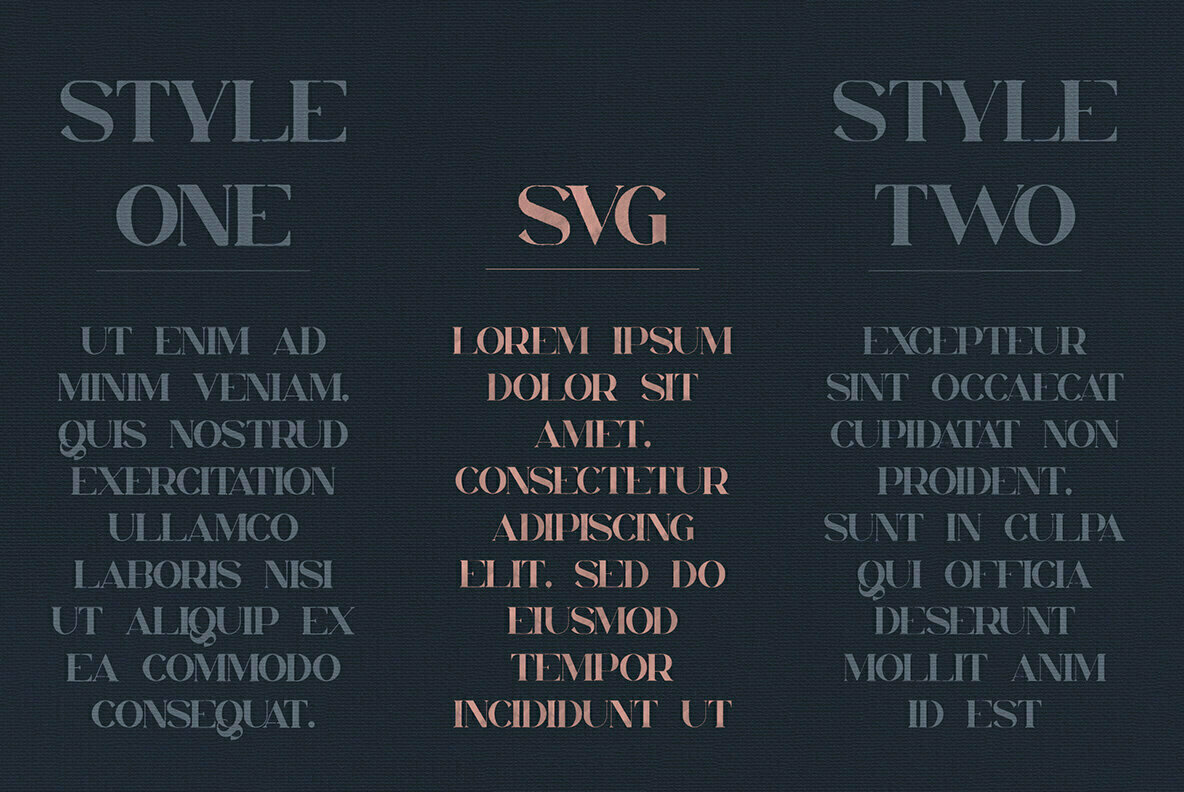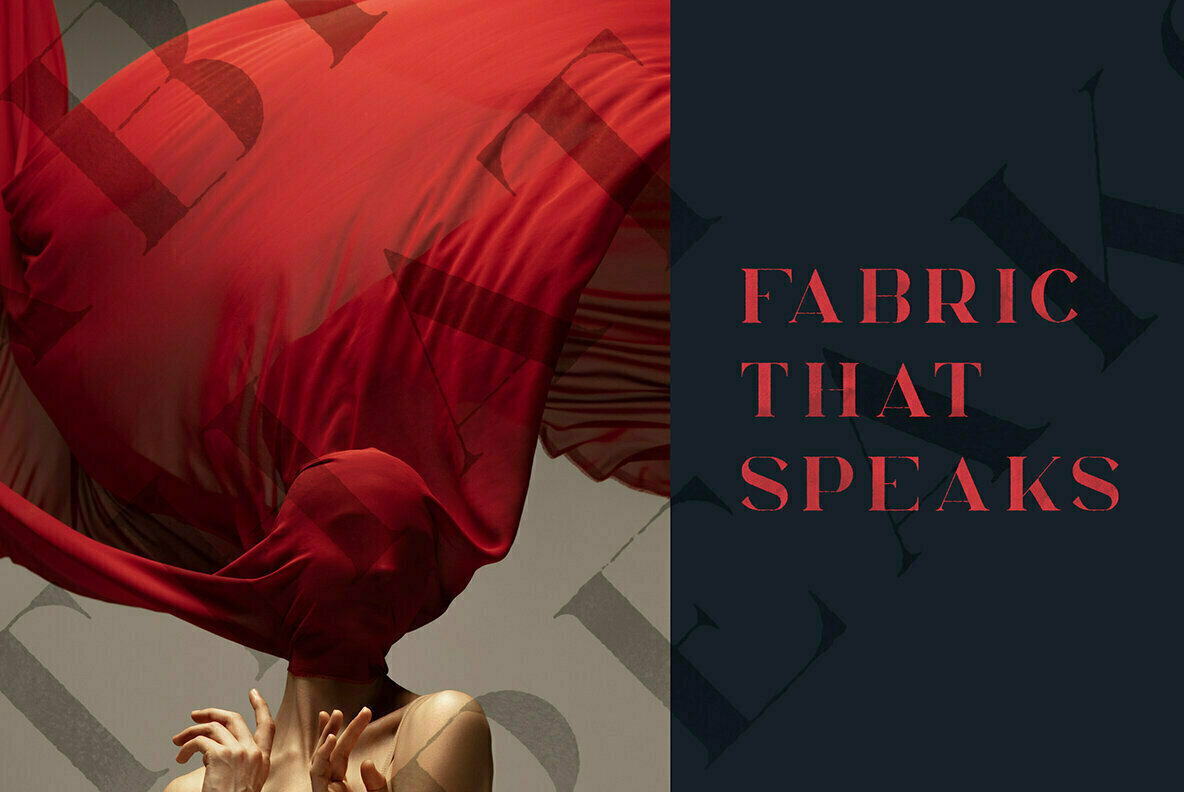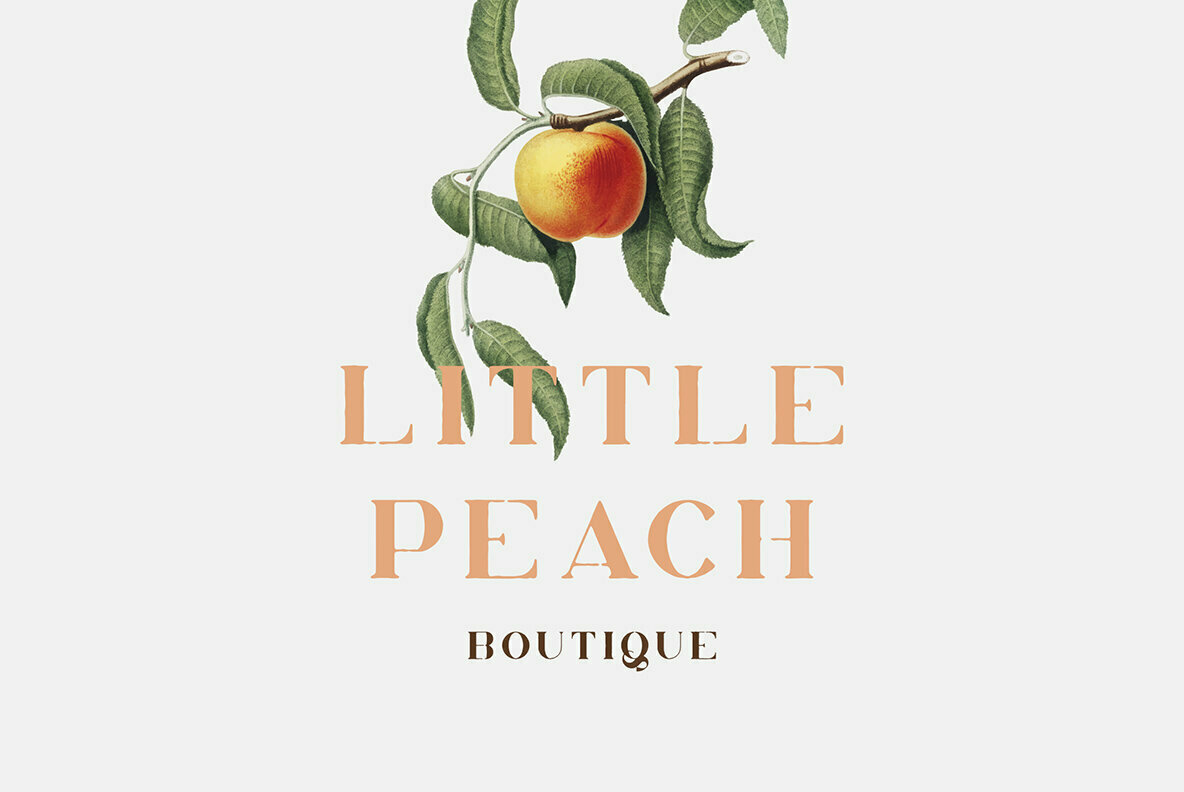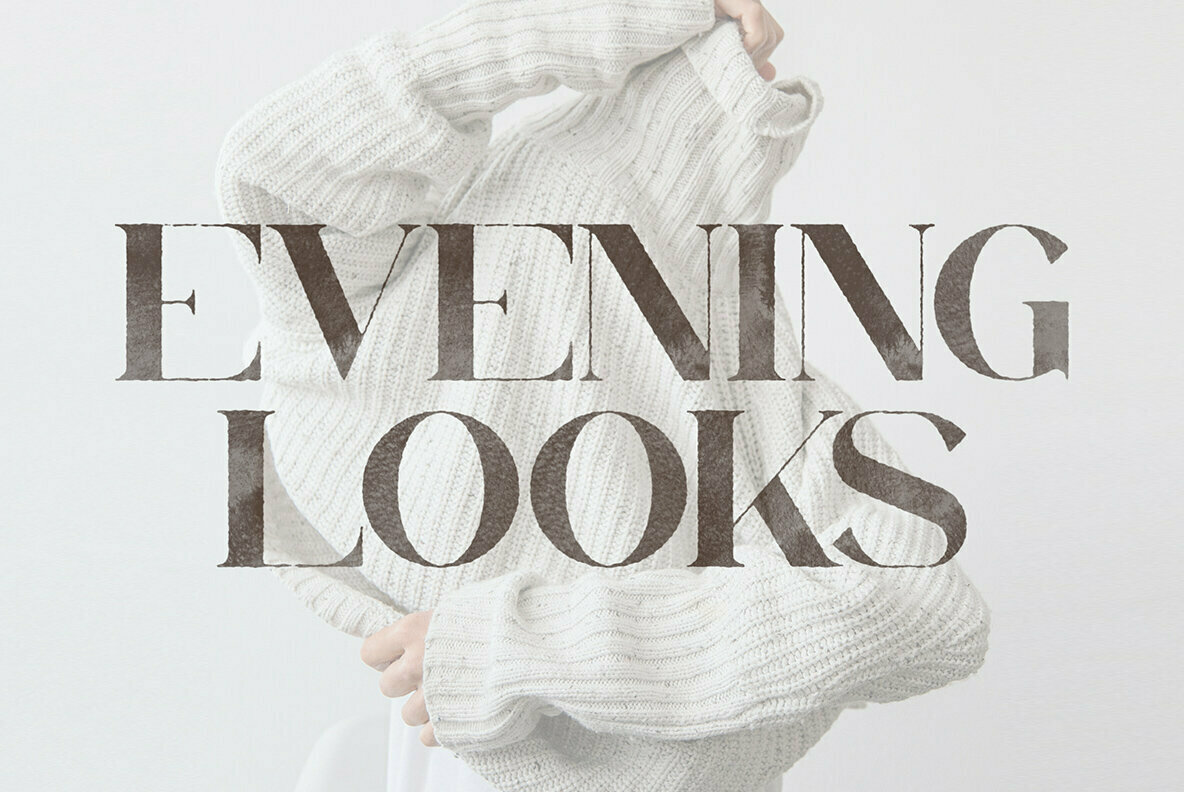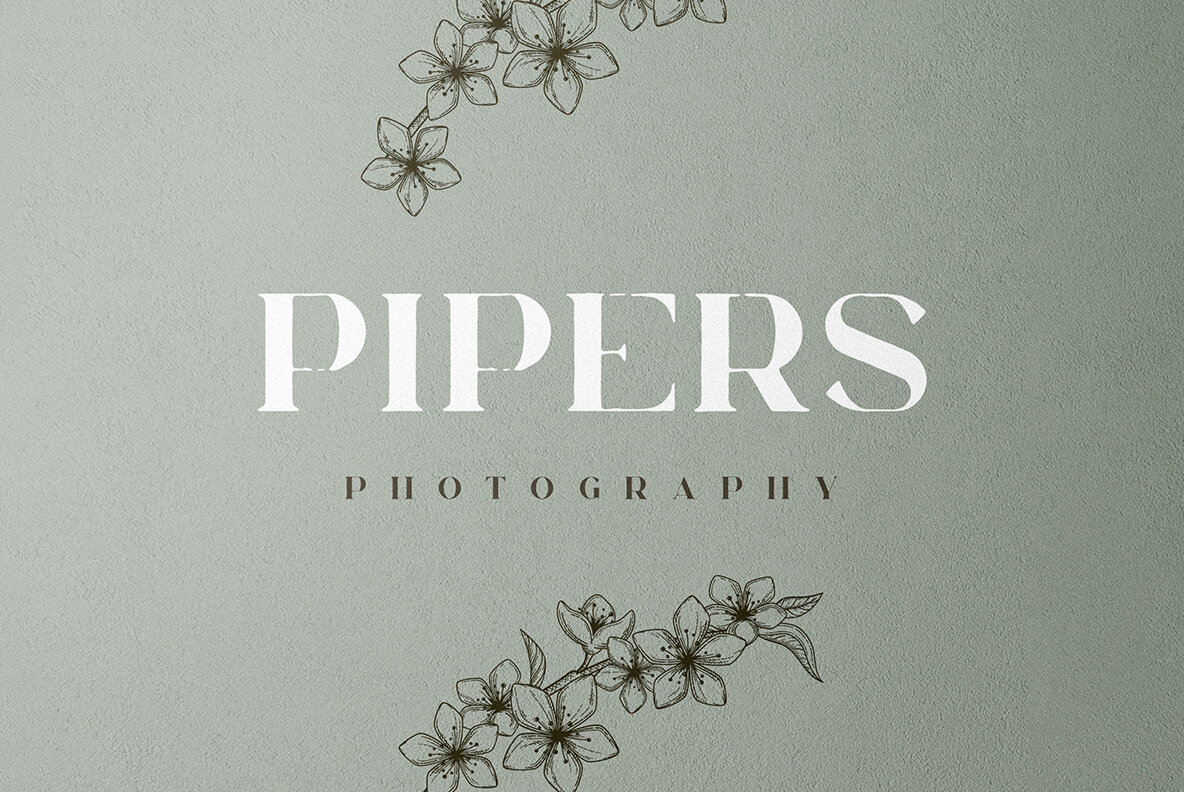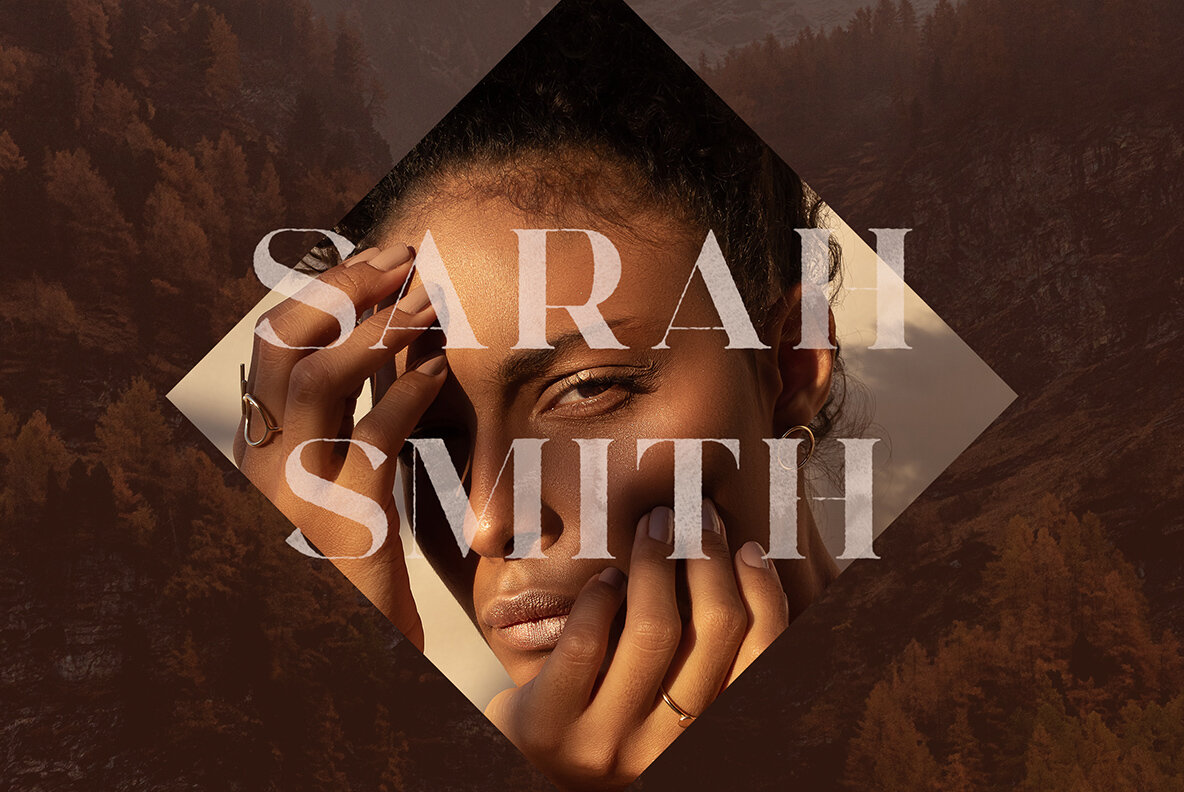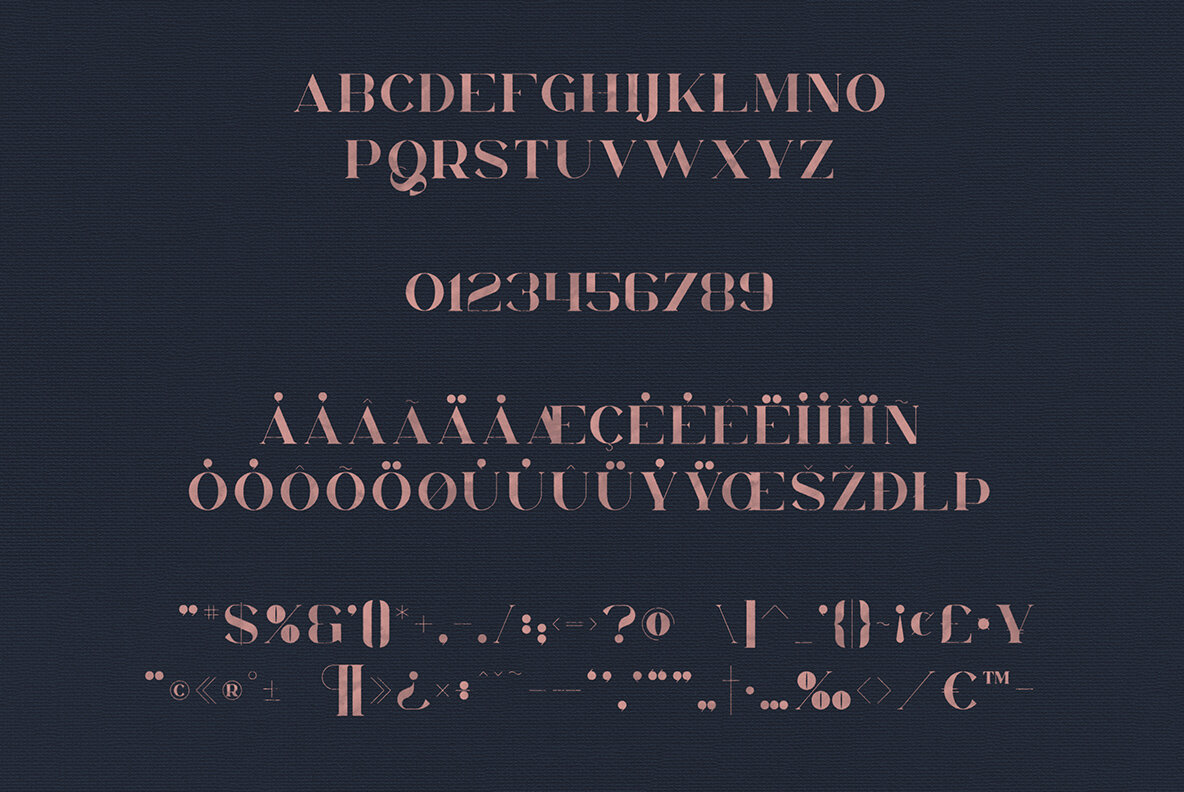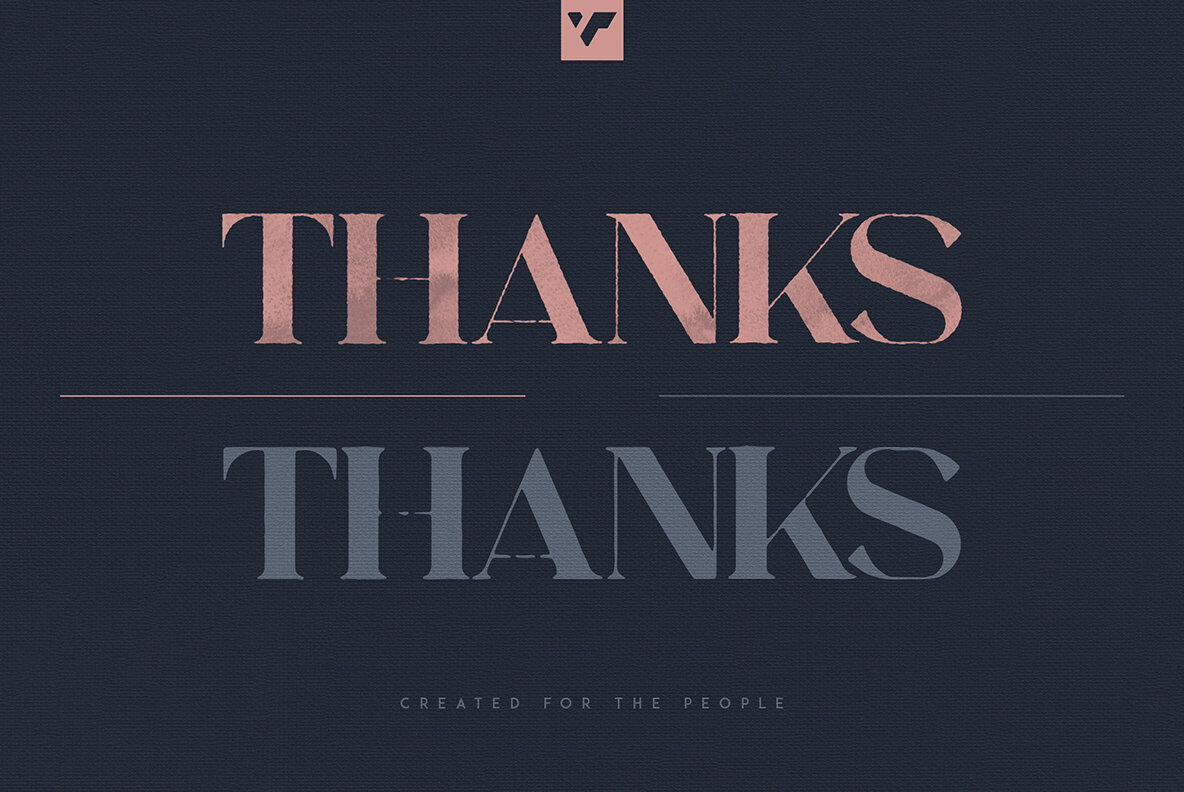
Orphic Serif Typeface: Dual Style Elegance
Designed for the contemporary creative, Orphic Serif offers a sophisticated dual font style that captivates and elevates design projects. Adaptable to various applications, this typeface seamlessly integrates into branding ventures, home-ware designs, and product packaging, enhancing the aesthetic appeal of magazine headers or serving as a chic text overlay.
• Two solid style fonts included
• Uppercase letters, numerals, punctuation, and symbols
• Extensive multilingual support